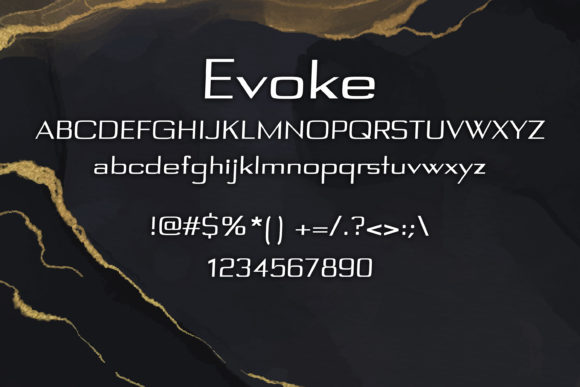
The Power of Evoke Font: Elevate Your Designs with a Bold and Simple Display Font
I’ll never forget the moment I stumbled upon the Evoke font. I was working on a project for a client who needed a bold and eye-catching display font. I had spent hours scouring the internet for the perfect one, but nothing seemed quite right. That was until I saw Evoke – its clean lines and simple shape immediately caught my attention. I knew right then and there that it was the perfect fit for my project. In this article, I’ll share with you why I’m obsessed with Evoke and how you can use it to take your designs to the next level.
An Honest Review of Evoke Font
What I Love About Evoke ✨
- ✅ Bold and attention-grabbing: Evoke is the perfect font for making a statement. Its bold and simple design ensures that your text will stand out from the crowd.
- ✅ Clean and modern look: The clean lines and simple shape of Evoke give it a modern and fresh look that’s perfect for contemporary designs.
- ✅ Versatile: Evoke can be used for a wide range of design projects, from posters and flyers to social media graphics and website headers.
- ⚠️ Limited use for body text: While Evoke is perfect for display text, it’s not the best choice for body text. Its bold design can be overwhelming for longer blocks of text.
- ⚠️ Limited font variations: Evoke doesn’t come with a wide range of font variations, which can limit its use for certain design projects.
The Backstory of Evoke Font
Evoke was designed by a team of typographers who wanted to create a bold and simple display font that would add a touch of modernity to any design. The font was inspired by the clean lines and simple shapes of modern architecture and product design. The designers behind Evoke wanted to create a font that would be versatile and easy to use, while also making a bold statement.
| Font Name | Evoke Font |
| Author | DmDesignsStoreArt |
Q: What is Evoke font?
A: Evoke is a bold and simple display font that’s perfect for making a statement in your designs.